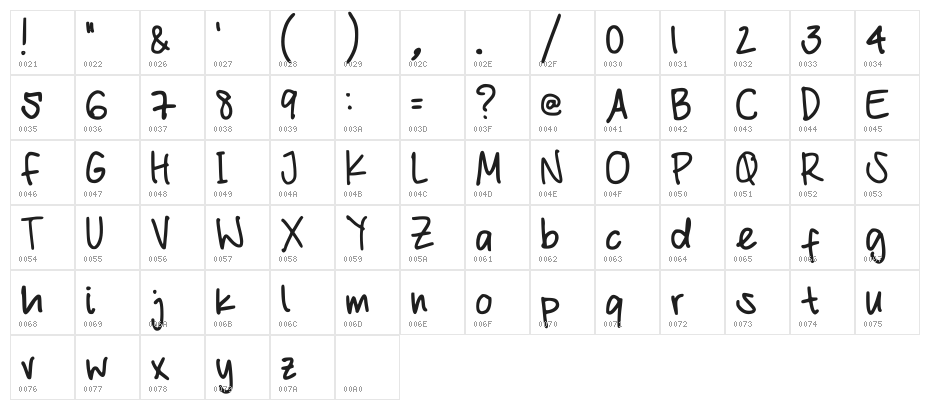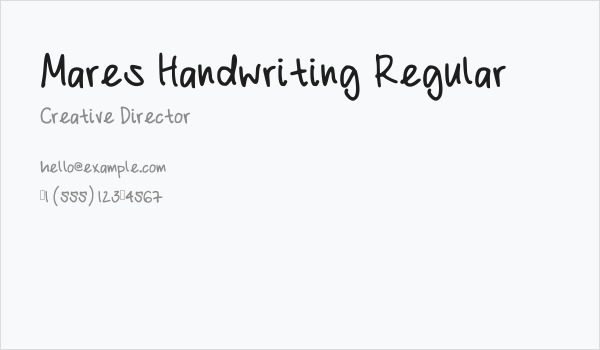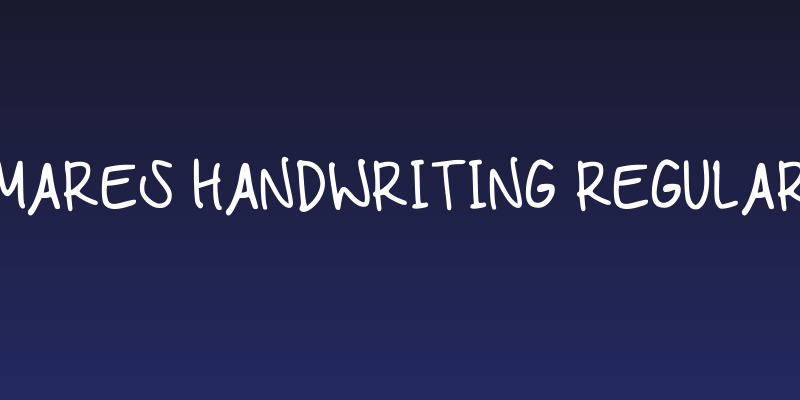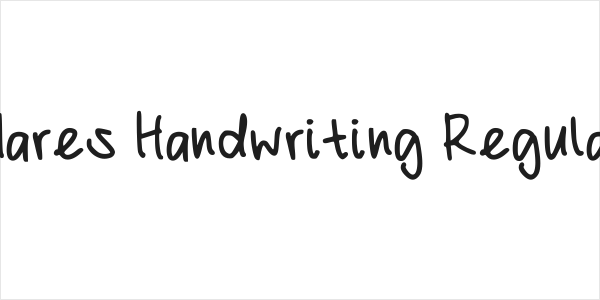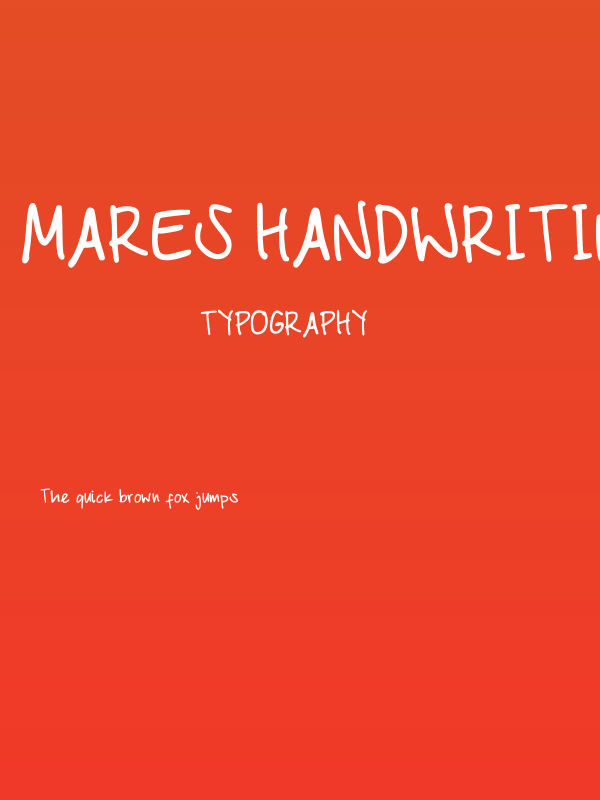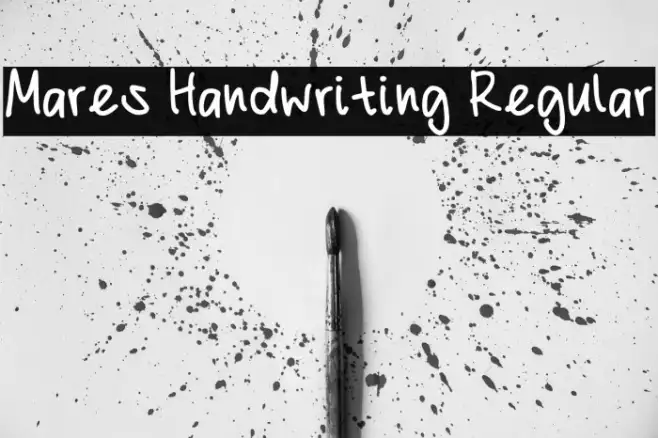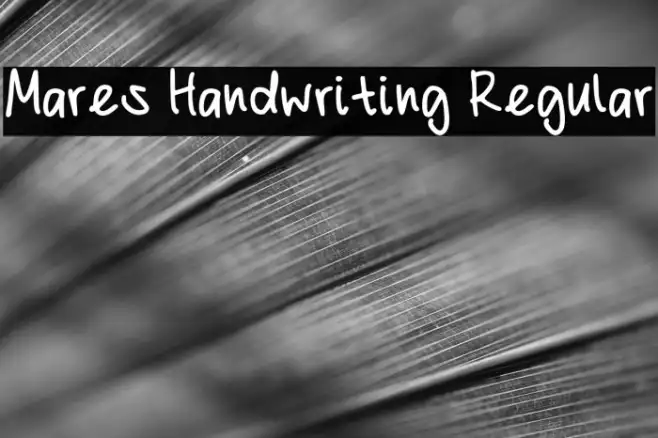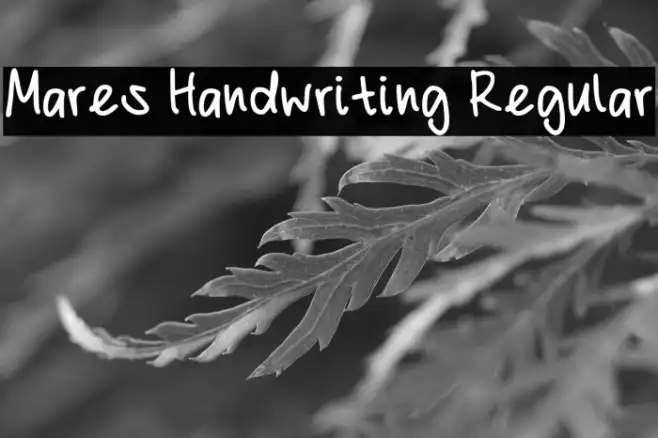
Mares Handwriting Regular Font
Mares Handwriting Regular Description
This font exudes a playful and casual handwritten style, characterized by its smooth, flowing strokes and slightly irregular letterforms that mimic natural handwriting. The uppercase and lowercase letters maintain a consistent style, with rounded edges and a friendly appearance. The numerals and special characters are crafted with the same informal charm, making them blend seamlessly with the alphabet. This font's organic feel is perfect for projects that require a personal touch, such as invitations, greeting cards, or creative branding materials.